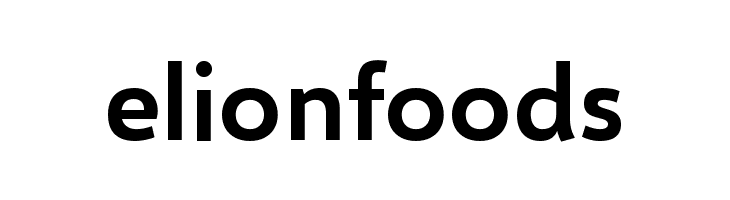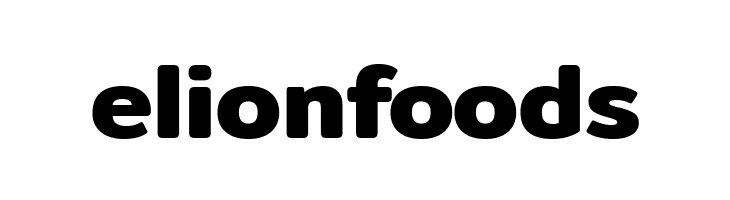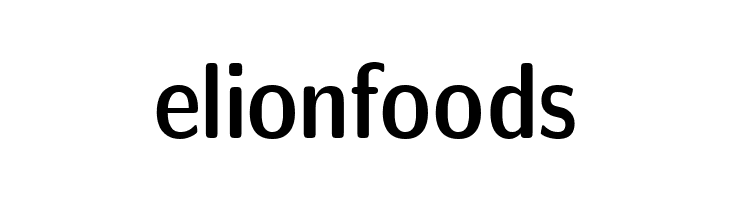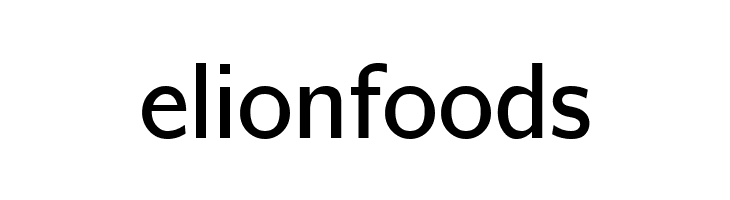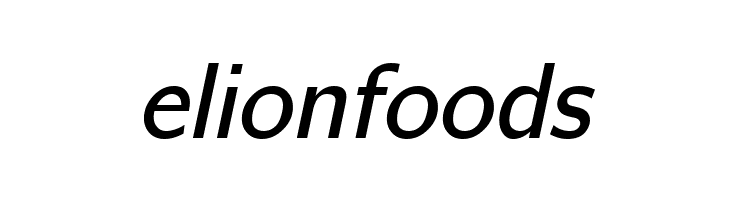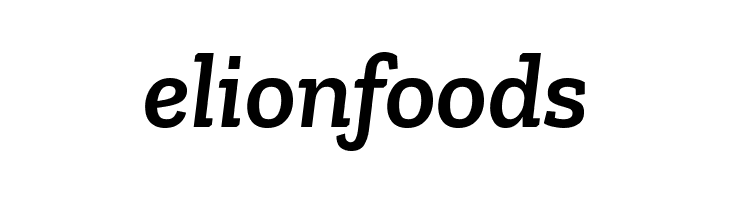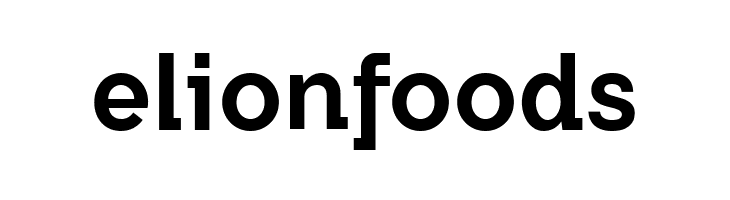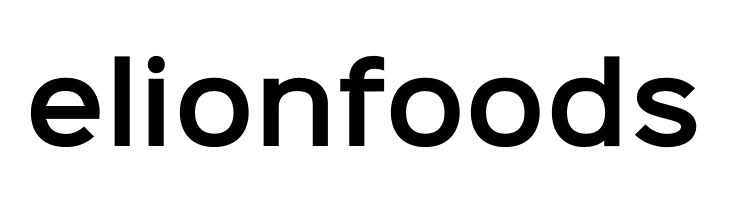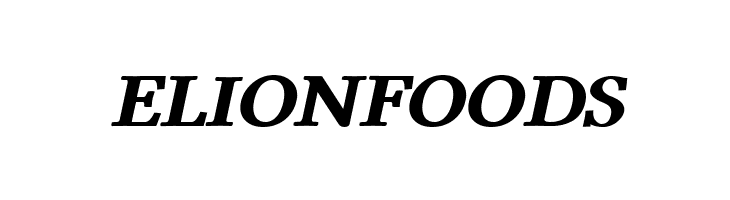
( deFharo - Fernando Haro - defharo.com )
A modern semi-slab serif font with a bold and balanced design.
( K-Type - www.k-type.com )
A modern, semi-bold sans-serif font with clean lines and balanced proportions.
( K-Type - www.k-type.com )
A modern, semi-bold italic sans-serif font with clean lines and excellent readability.
( Linux Libertine - www.linuxlibertine.org )
A classic serif font with semi-bold weight and italic style, offering elegance and readability.
A modern, semi-bold sans-serif font with excellent readability and versatility.
A modern, semi-bold sans-serif font with rounded edges and excellent readability.
A modern, demi-condensed sans-serif font with consistent stroke width and excellent readability.
A clean, modern semi-bold typeface with excellent readability and balance.
A modern, semi-bold oblique font with clean lines and dynamic style.
A semi-bold, italic slab serif font with a modern yet classic appeal.